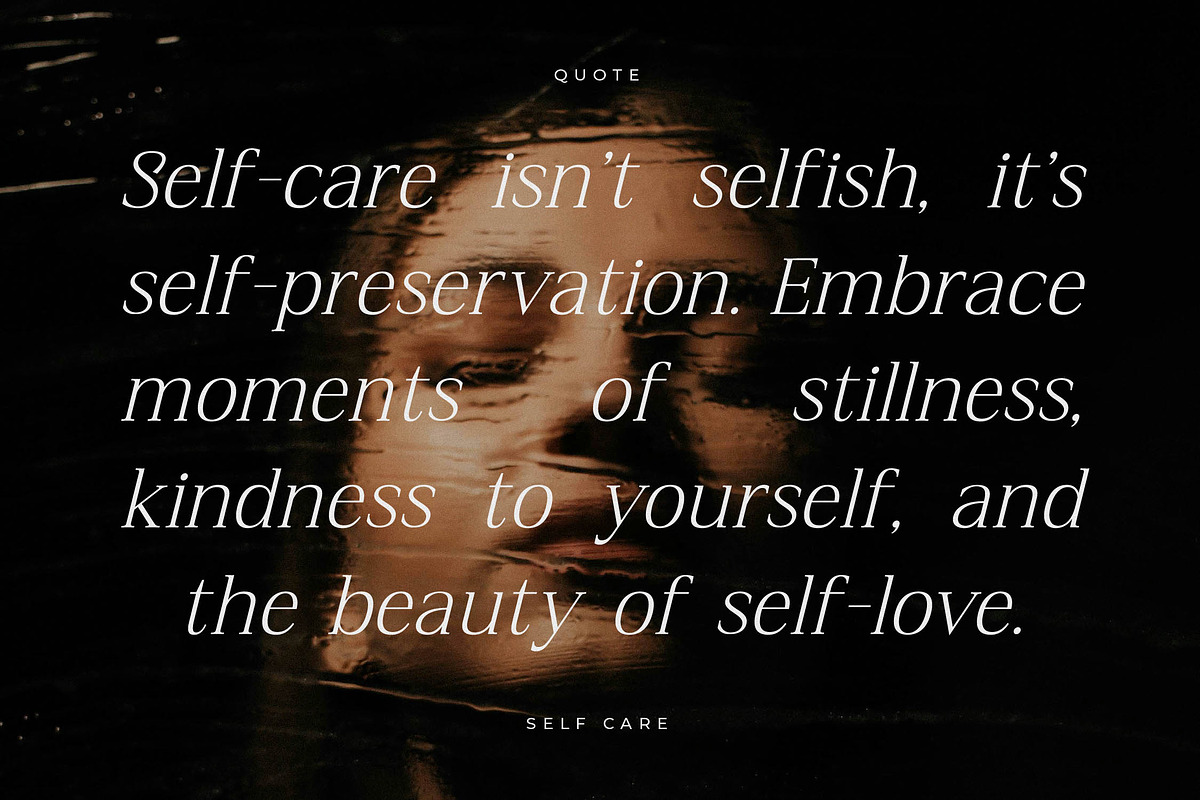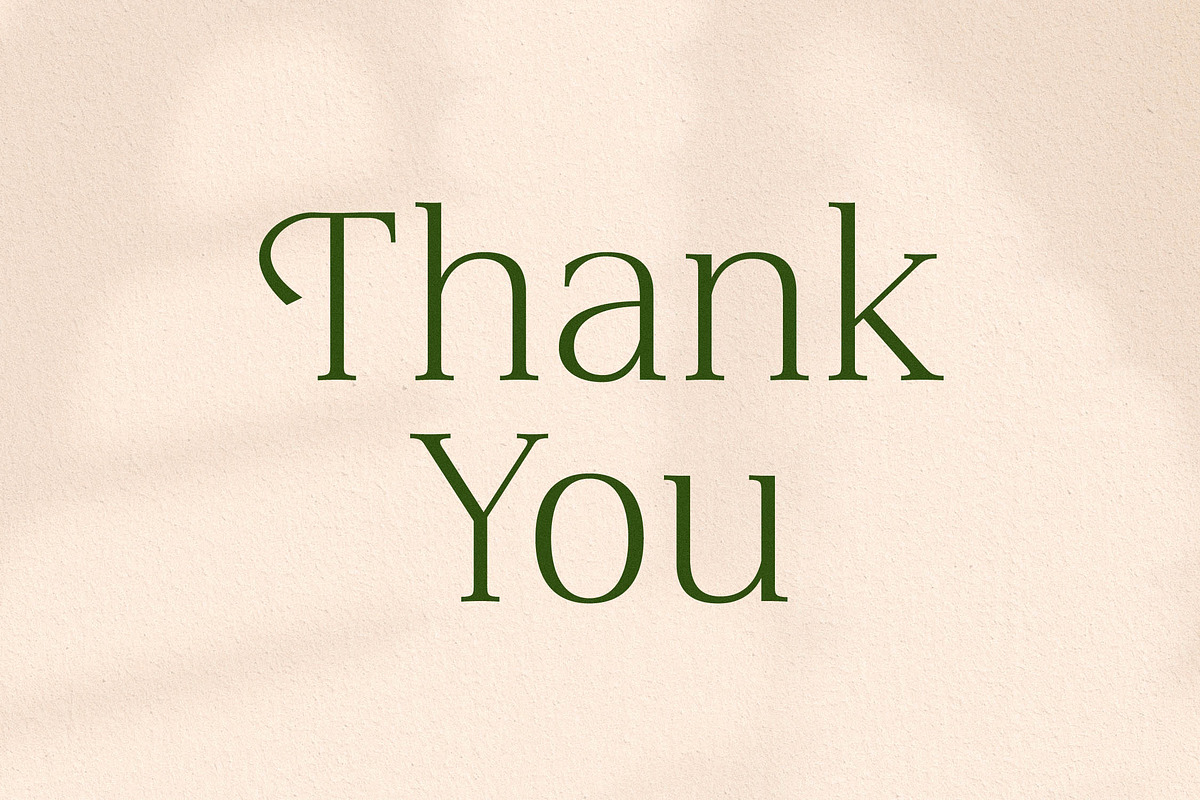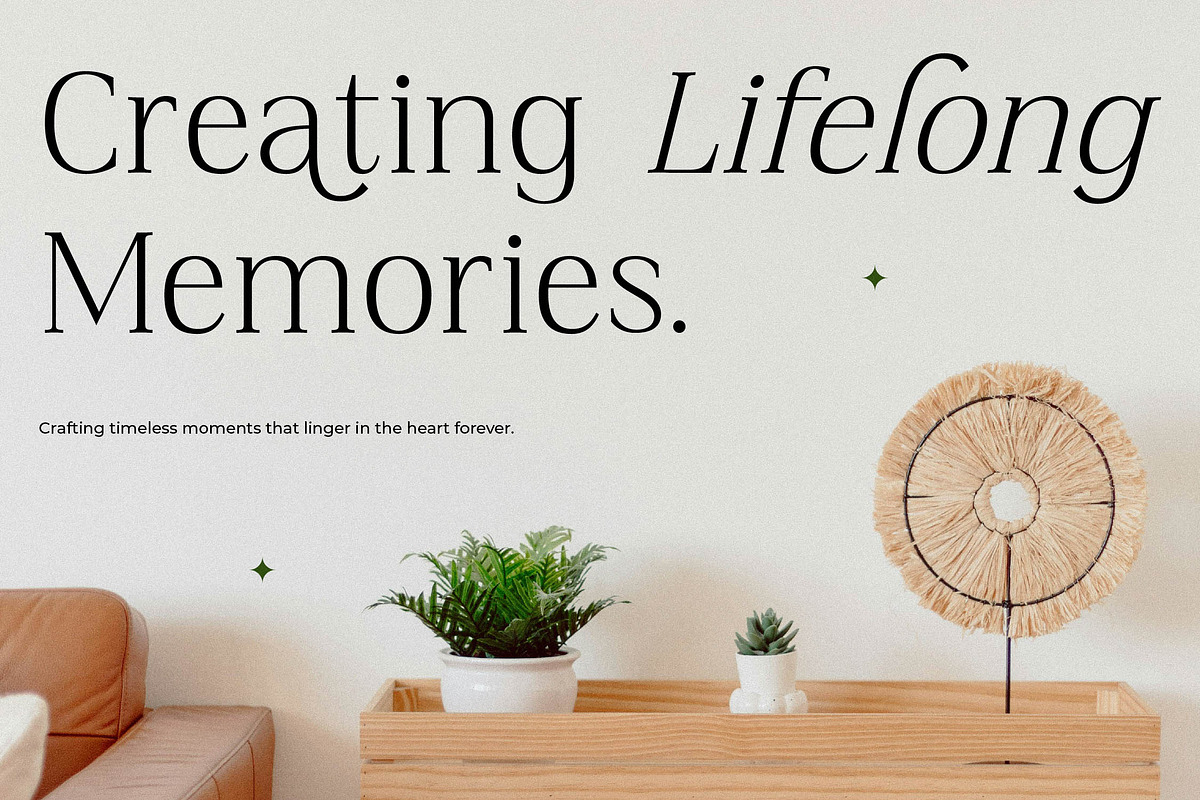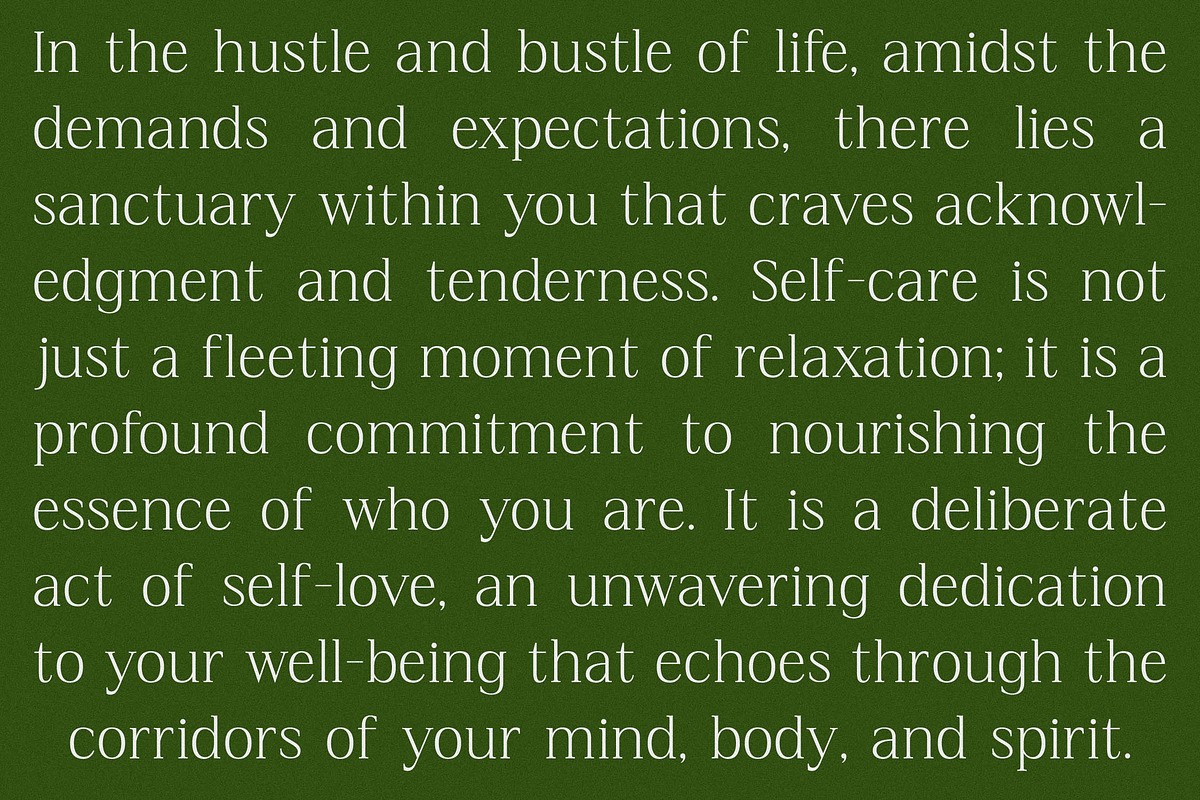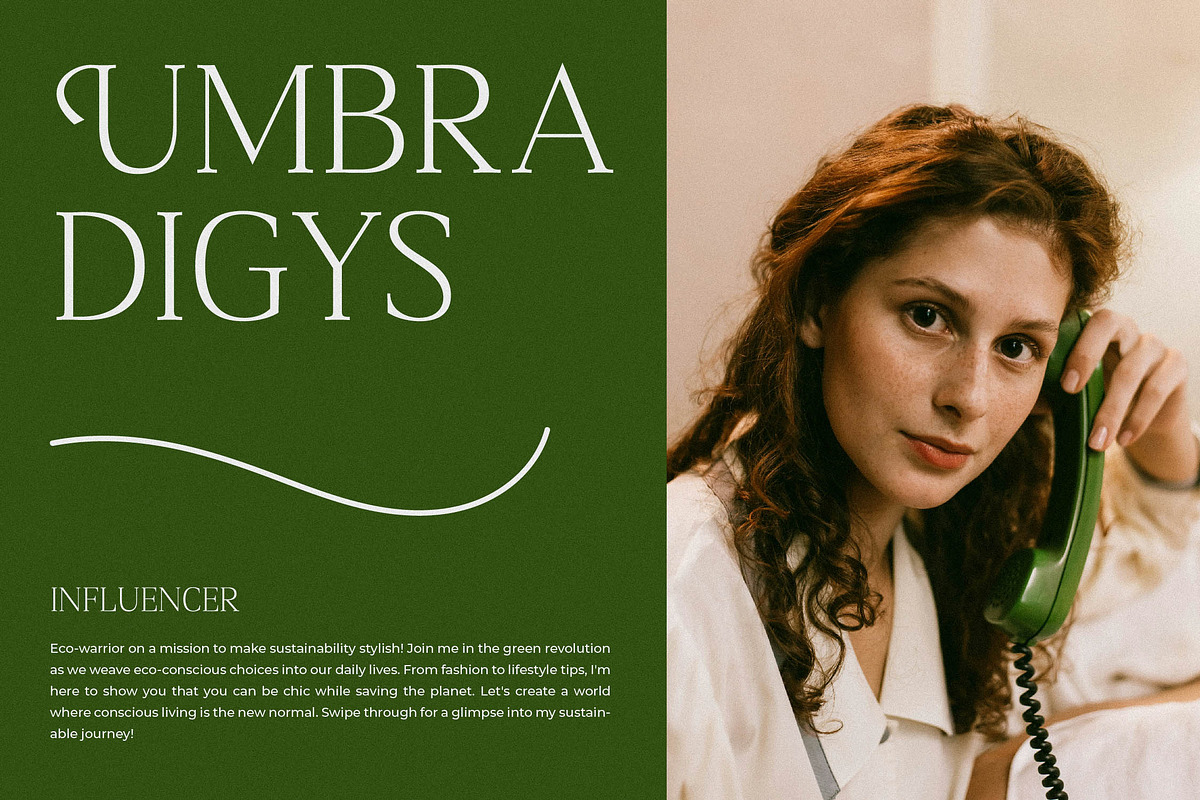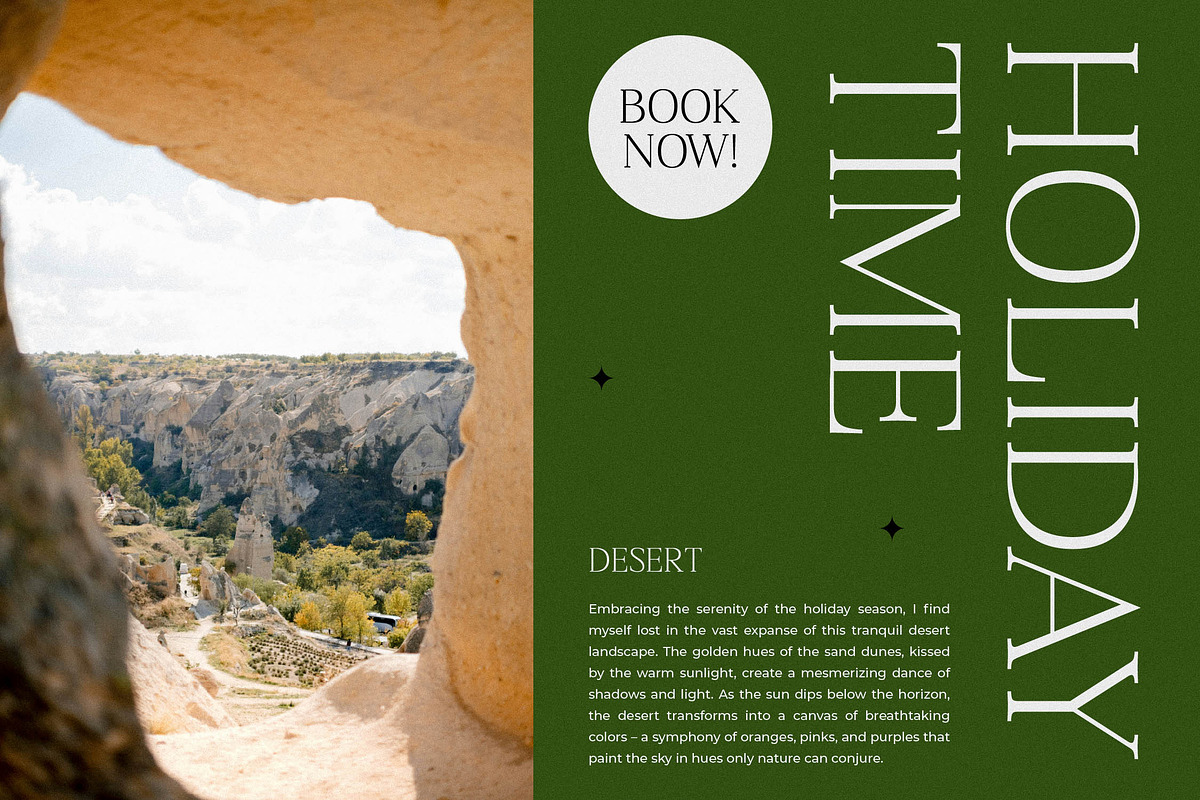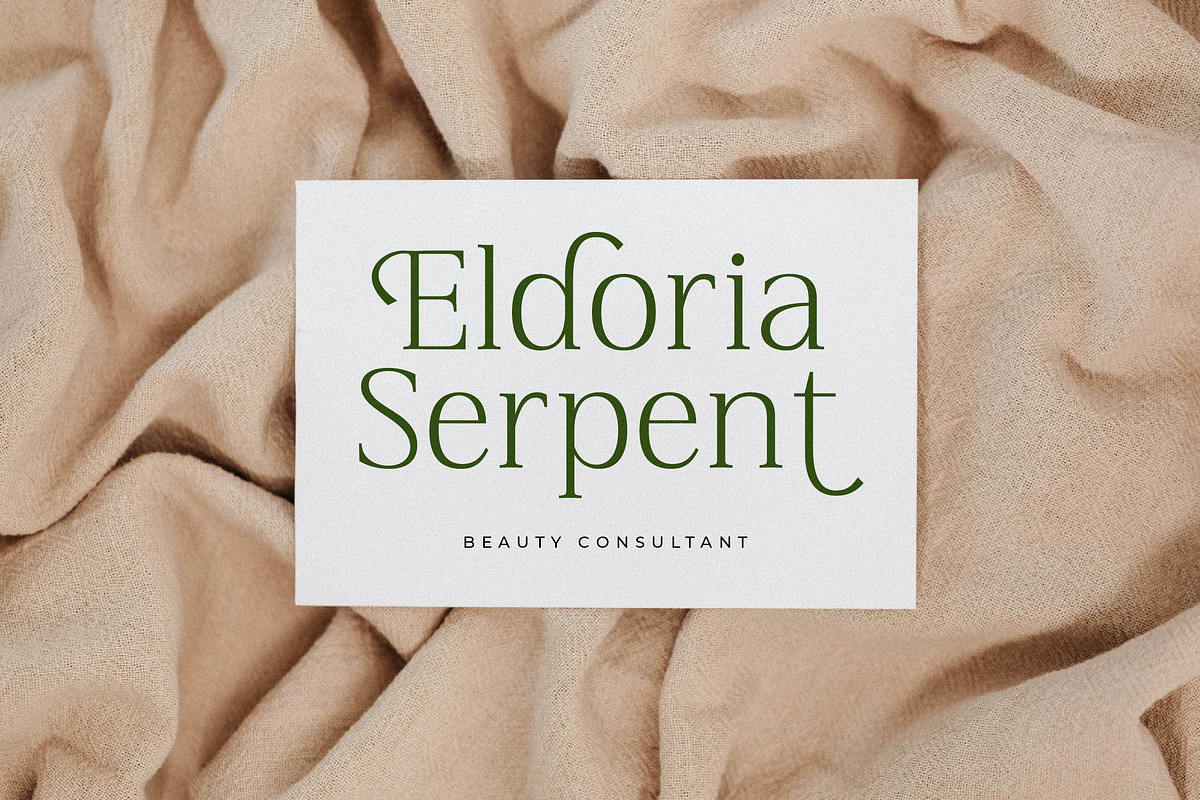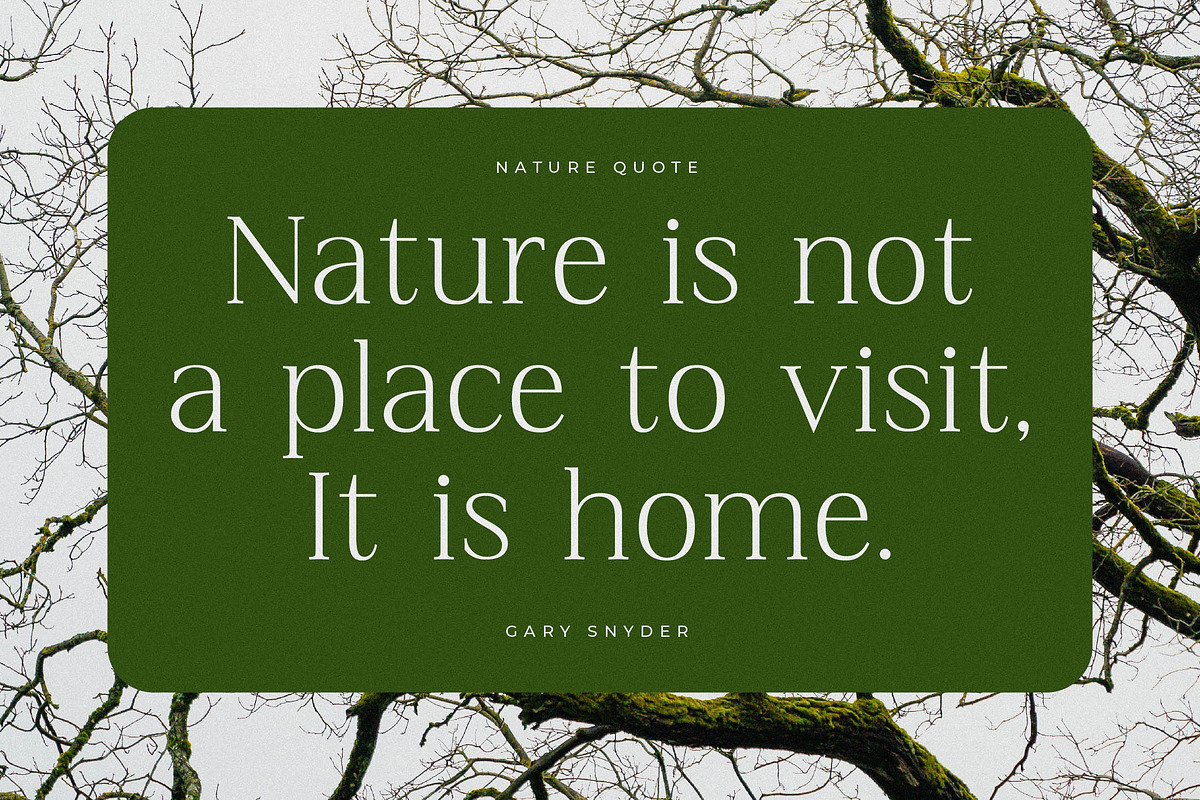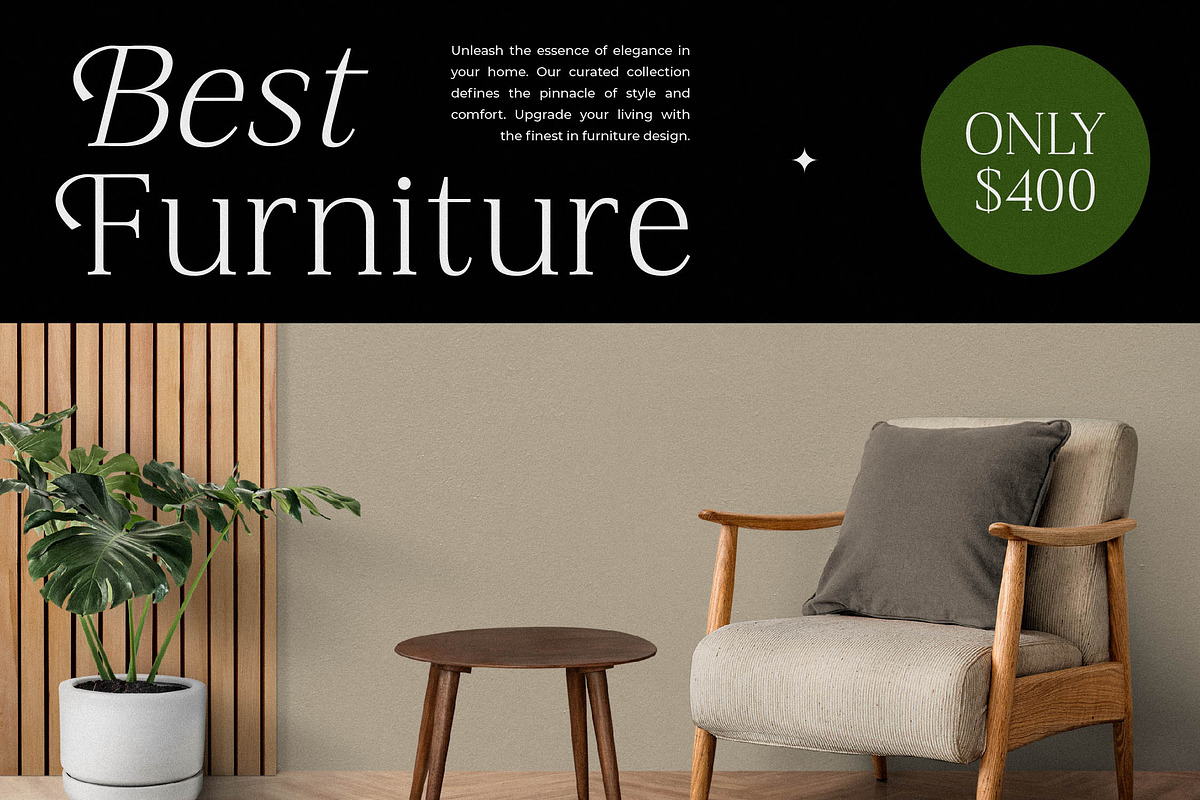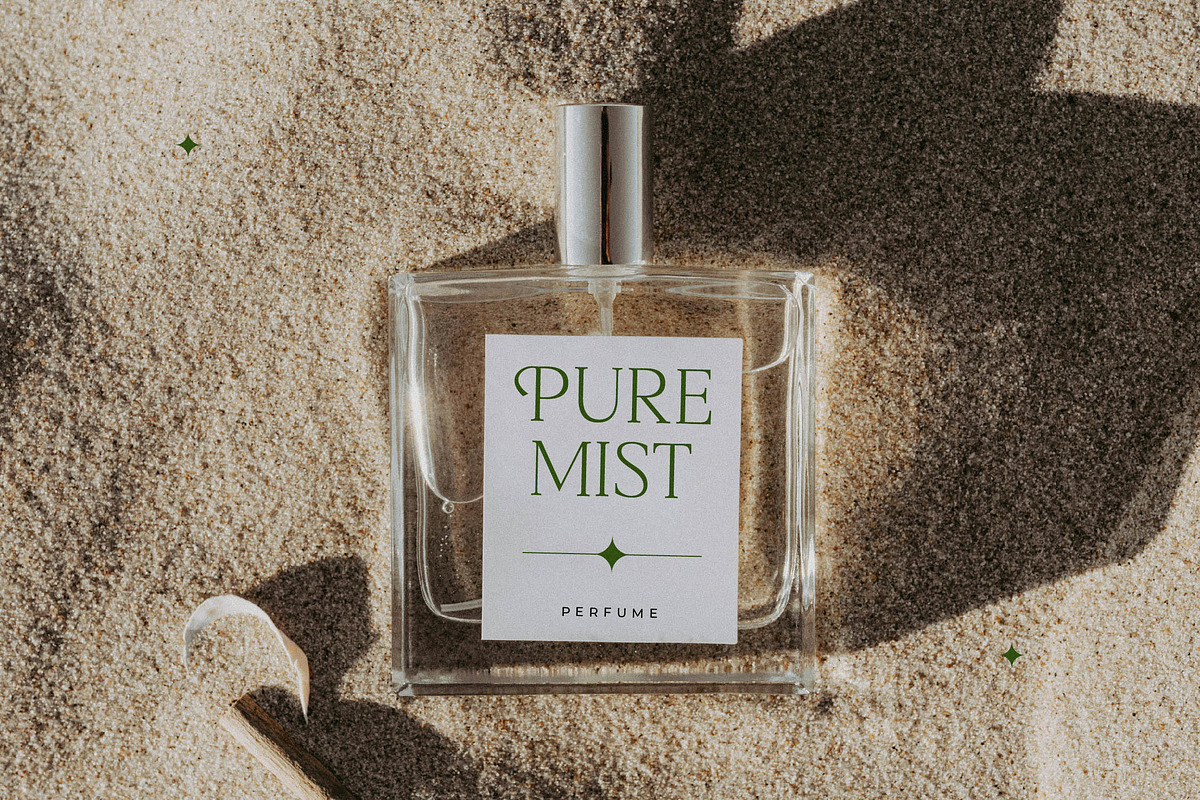
Blacindy Modern Serif Font
Blacindy – Modern Serif Font , from Letterena, is a Luxury Serif font, suitable for any projects such as: logos, branding projects, homeware designs, product packaging, mugs, quotes, posters, shopping bags, t-shirts, book covers, name card, invitation cards, greeting cards, label, photography, watermark, special events, and all your other luxury and beautiful projects that need a Luxury serif taste.